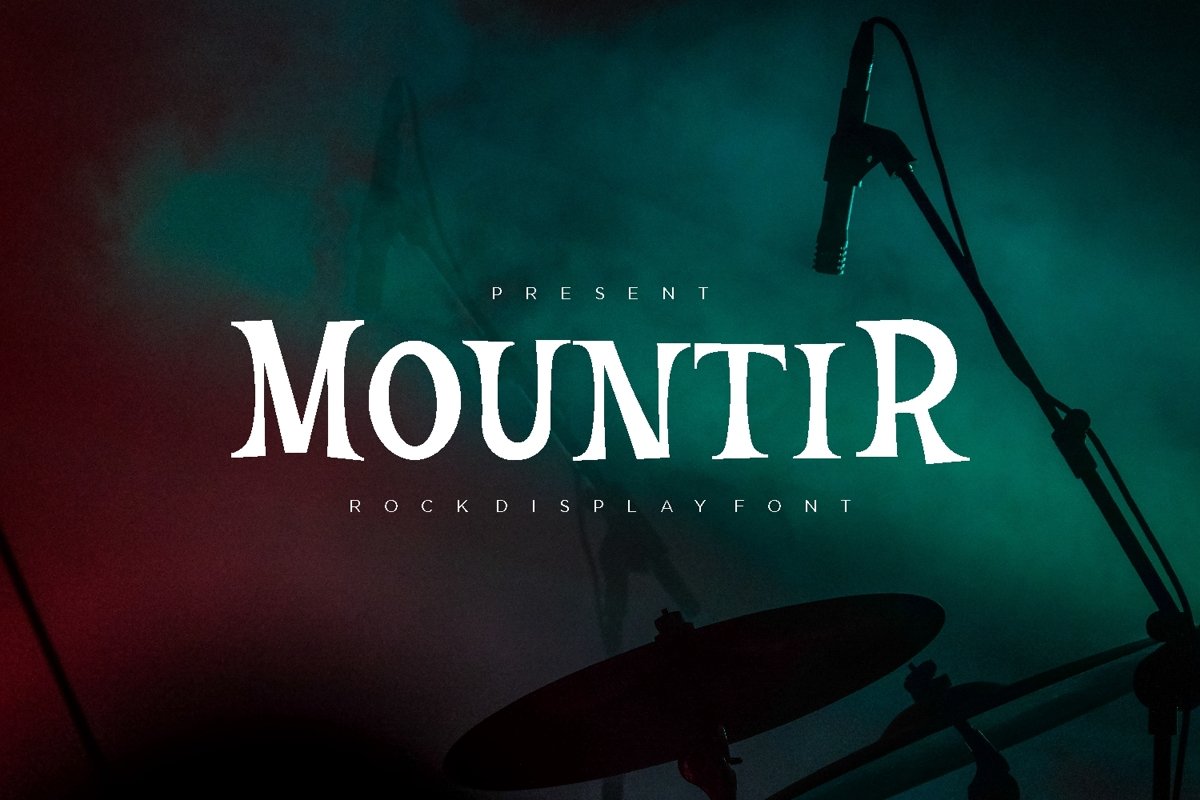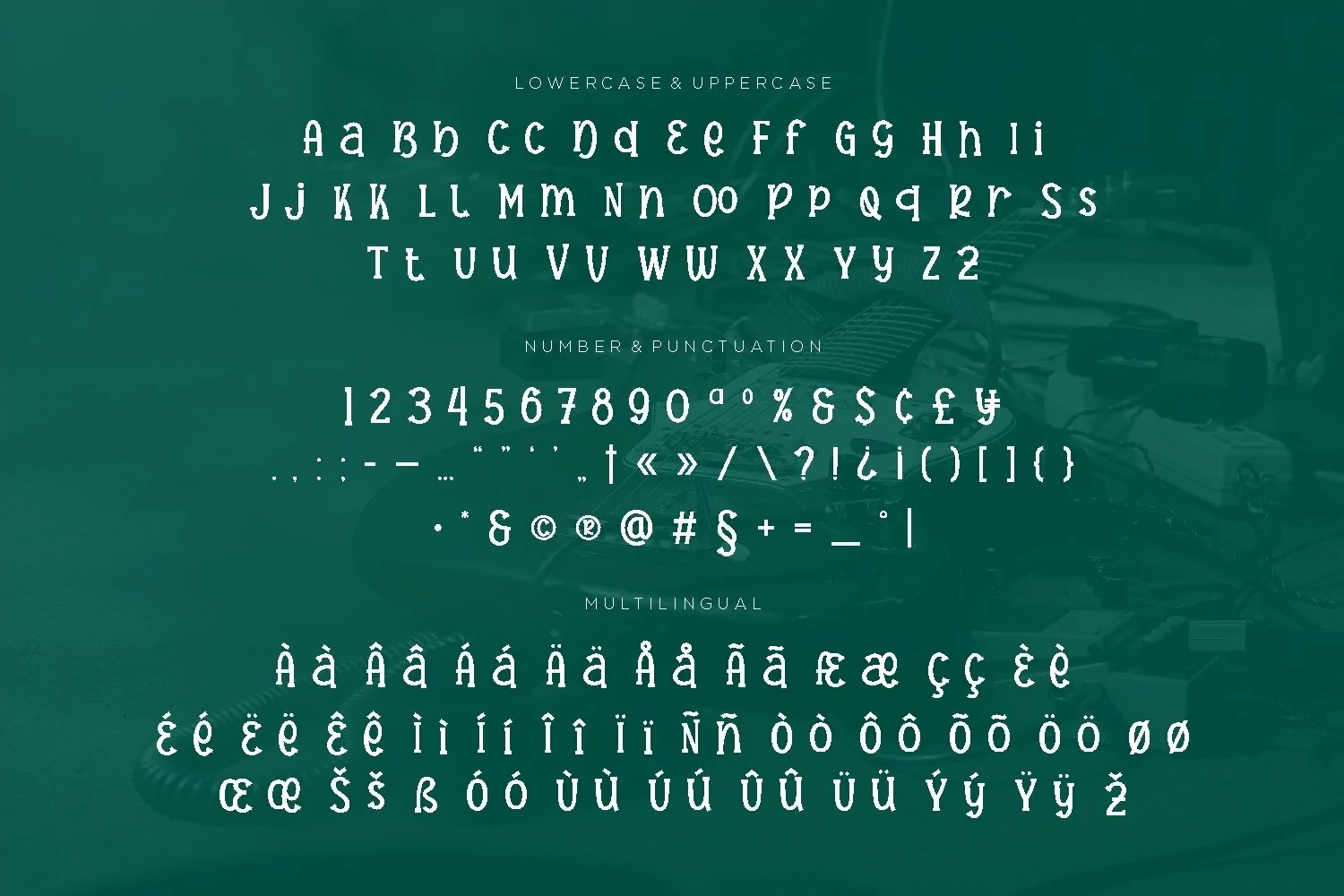
Mountir is serif display come with rock themes. We wanted to create the most unique looks. It matches applies in some designs such as the logotype, brand, packaging, quotes, rock poster, t-shirt, book, party invitation and more custom design. The features uppercase, lowercase, numeral, punctuation & symbol, multilingual support, PUA encoded (fully accessible without additional design software).